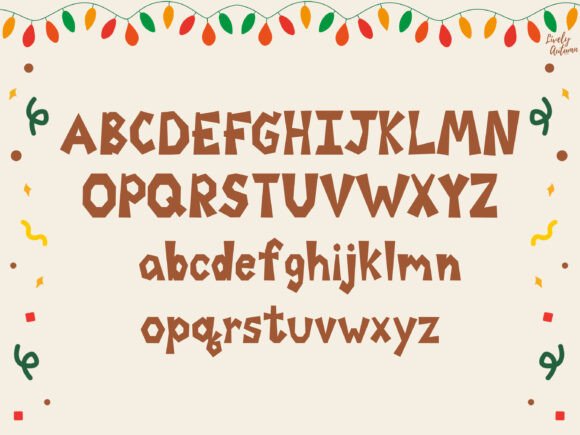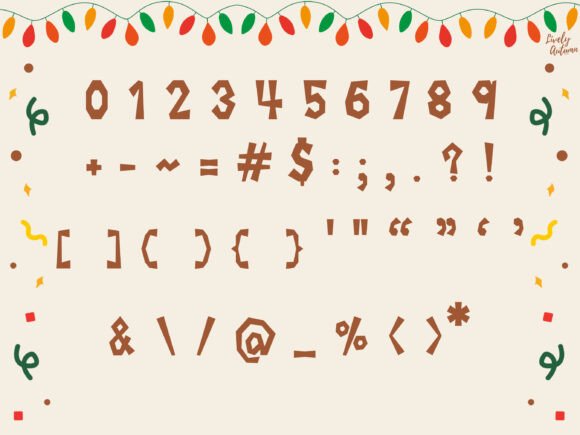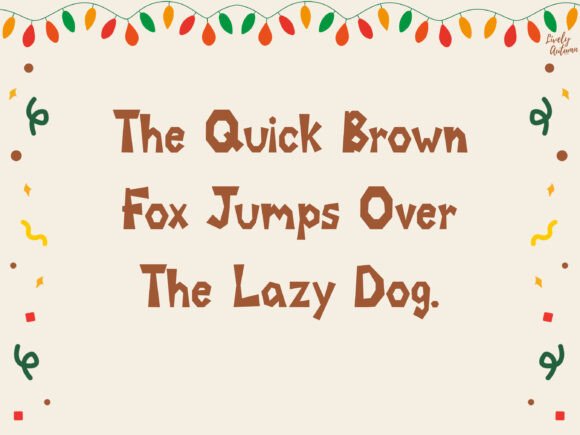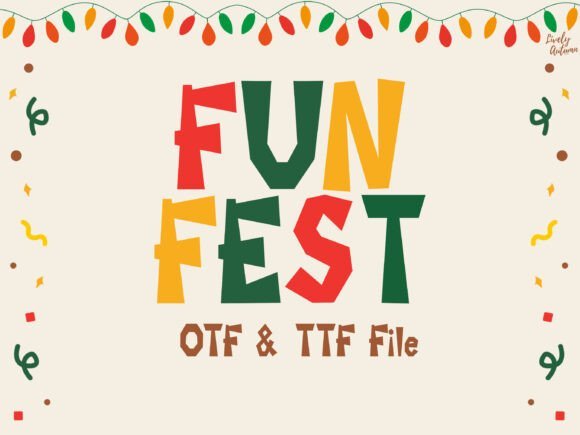
Introduction to Funfest Font
FunFest Font is a playful, cartoon typeface with sharp edges.
Perfect for your personal projects and various projects From invitations to posters, social media graphics, journals, and much more.
Key Features of Funfest Font
Why Choose Funfest Font?
Funfest Font offers exceptional quality and versatility, making it a valuable addition to your design toolkit. Whether you’re creating for personal projects or commercial use, Funfest Font delivers professional results.